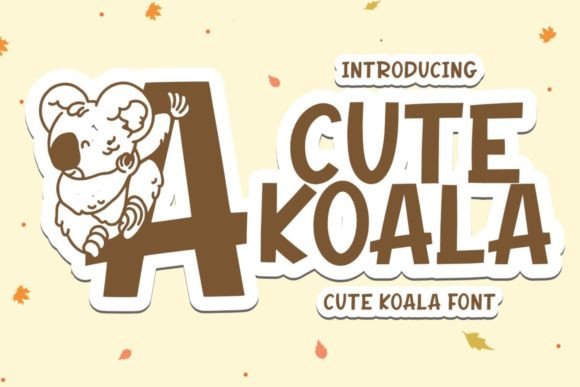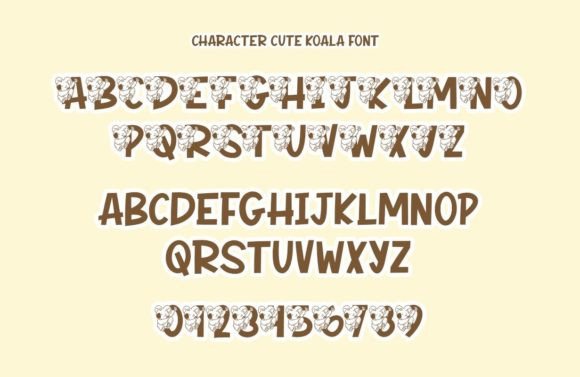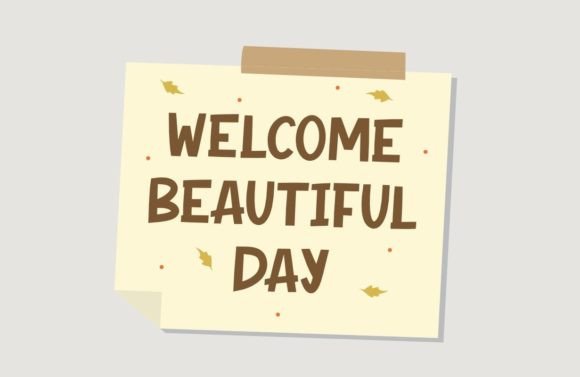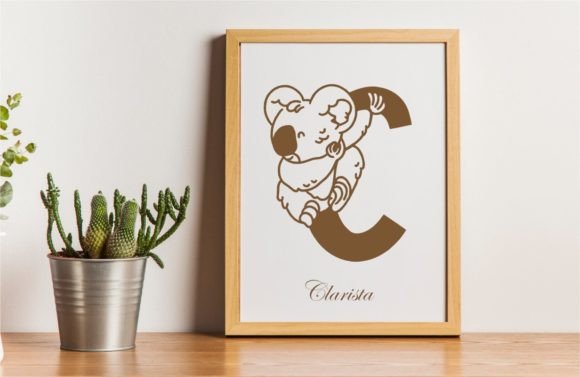
Cute Koala Font
“Cute Koala” is an adorable and playful decorative font that exudes a sense of fun and charm. This font is designed to bring a lighthearted and cute touch to your designs. Incorporate “Cute Koala” into your projects, and witness how it adds life and personality to your creative endeavors.
The font’s design is crafted to capture the essence of cuteness and playfulness. The characters are likely to feature playful curves, whimsical elements, and an overall delightful appearance. This makes “Cute Koala” a perfect choice for projects that aim to convey a sense of joy and innocence.
Whether you’re working on designs for children’s books, greeting cards, posters, or any project that calls for a touch of cuteness, “Cute Koala” can become a delightful asset. Its playful nature makes it particularly suitable for creative works targeting a younger audience.
Incorporate “Cute Koala” into your graphic designs, and it can become a key element in creating visually appealing and engaging content. Its decorative and fun-loving style adds a unique flavor that stands out and grabs attention.
This font is versatile and can be applied to a variety of projects, including branding, social media graphics, party invitations, and more. Its cuteness factor makes it a great choice when you want to infuse a sense of joy and whimsy into your designs.
In summary, “Cute Koala” is more than just a font; it’s a delightful tool to enhance the visual appeal of your creative projects. With its playful and charming design, it brings a touch of fun that can captivate and resonate with audiences of all ages. Add “Cute Koala” to your font collection, and let its adorable charm elevate your designs.